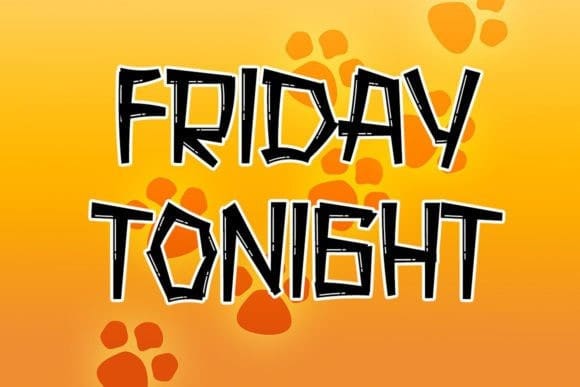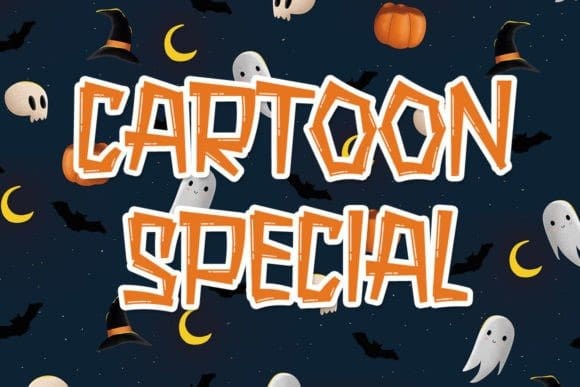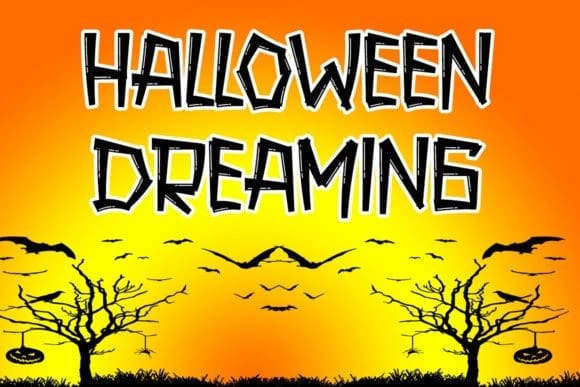
Halloween Dreaming Font
Halloween Dreaming Font is fresh and clean. This font will look amazing in a great number of projects, both formal and informal